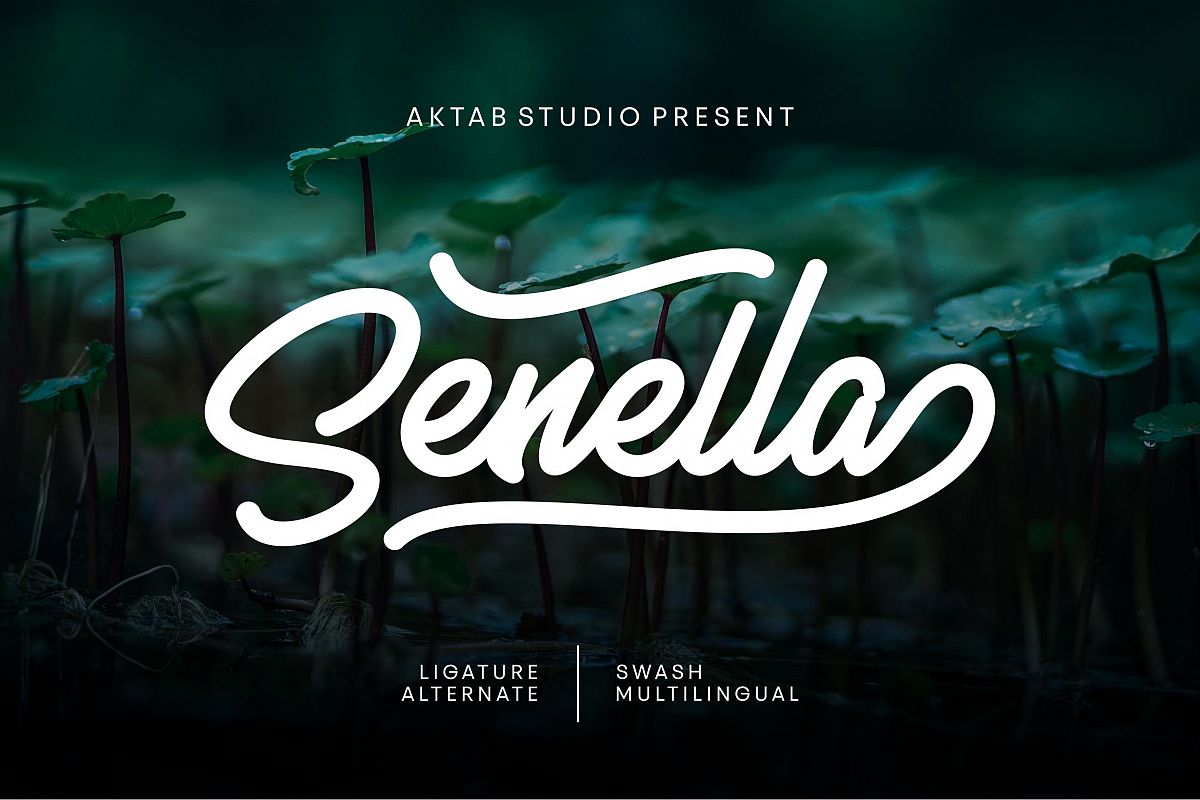
Senella Script Font
Senella is a display font with more than 350 characters and covers several languages based on the Latin alphabet; the whole font design has also been completed with extensive alternates, ligatures and swashes sets.Senella is suitable for any design project, vintage, fashion, branding, print design and whatever design you want
Font Featured
• Symbols
• Alternates
• Swashes
• Multilingual characters : Afrikaans, Albanian, Catalan, Croatian, Czech, Danish, Dutch, English, Estonian, Finnish,French, German, Hungarian, Icelandic, Italian, Lithuanian, Maltese, Norwegian, Polish, Portugese, Slovak, Slovenian, Spanisch, Swedish, Turkish, Zulu